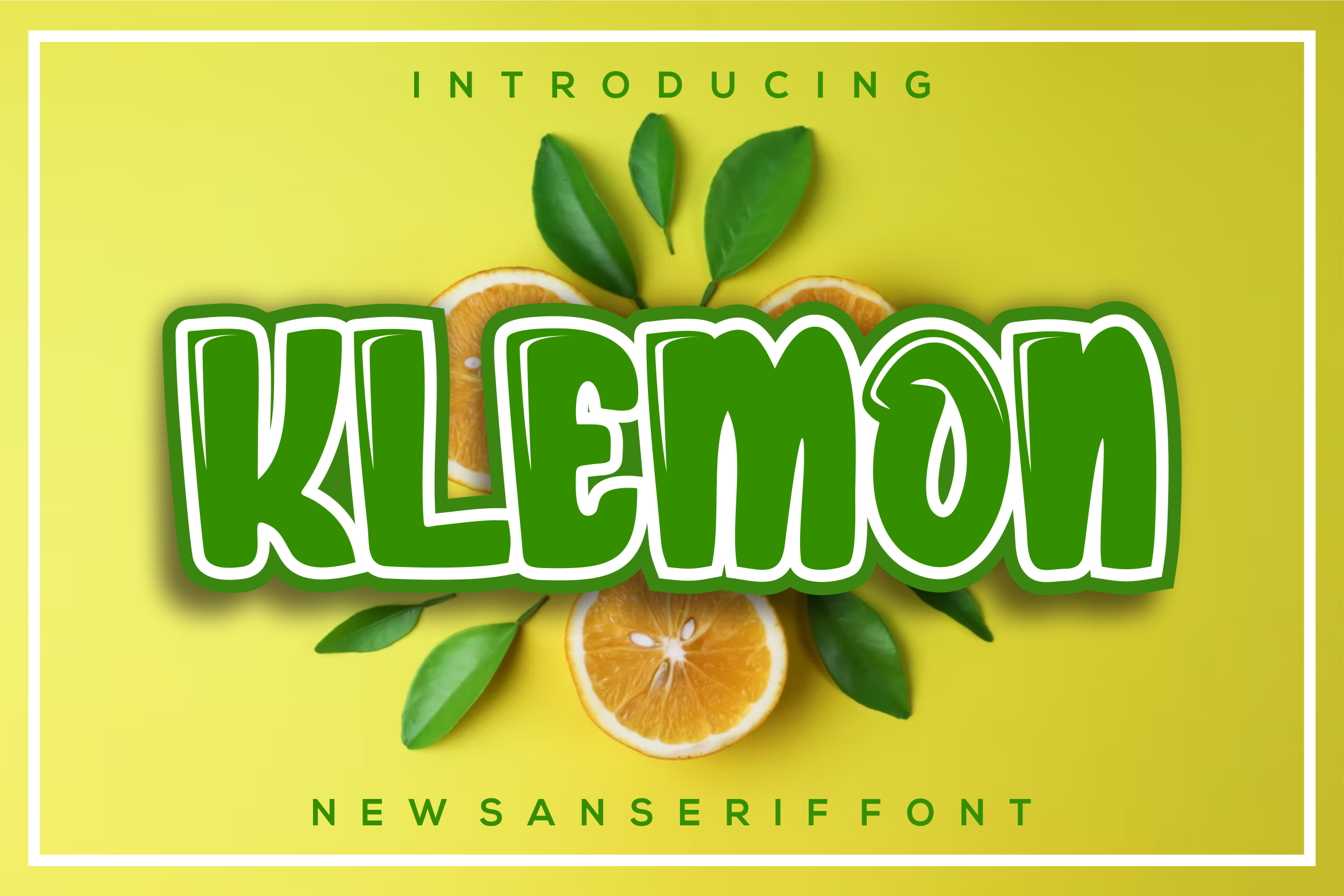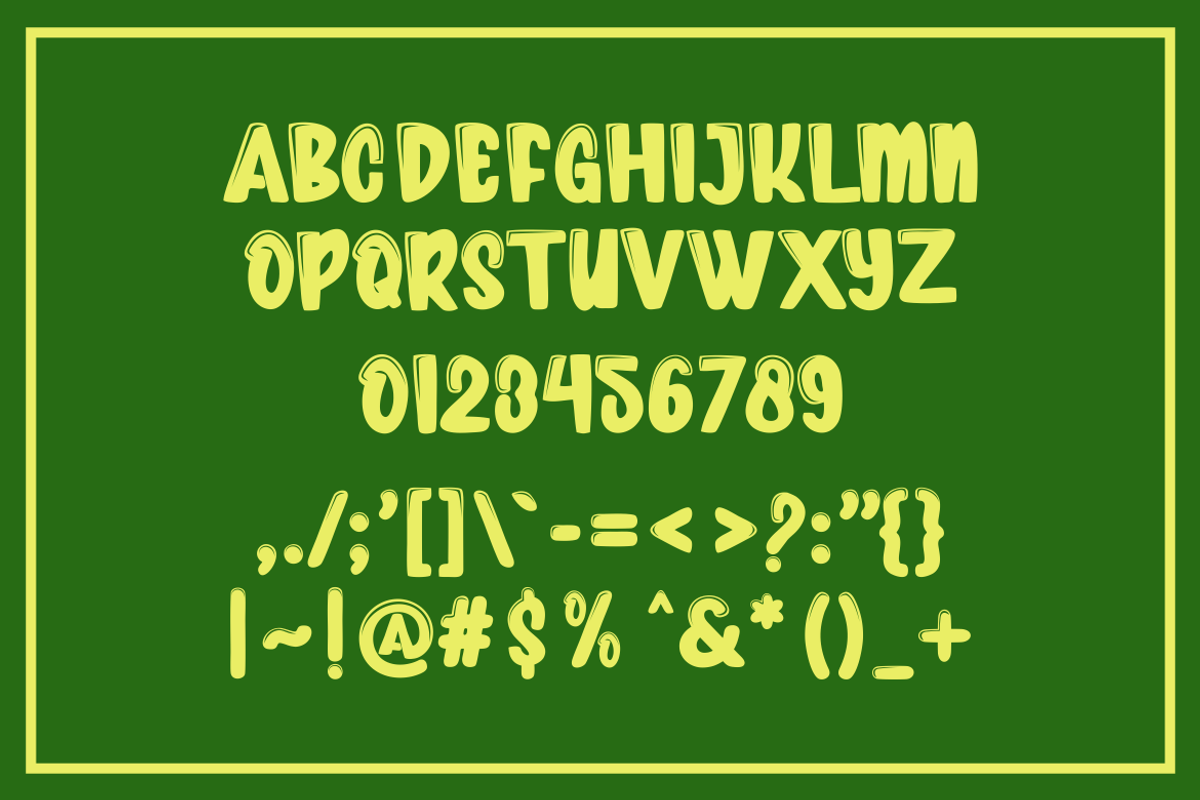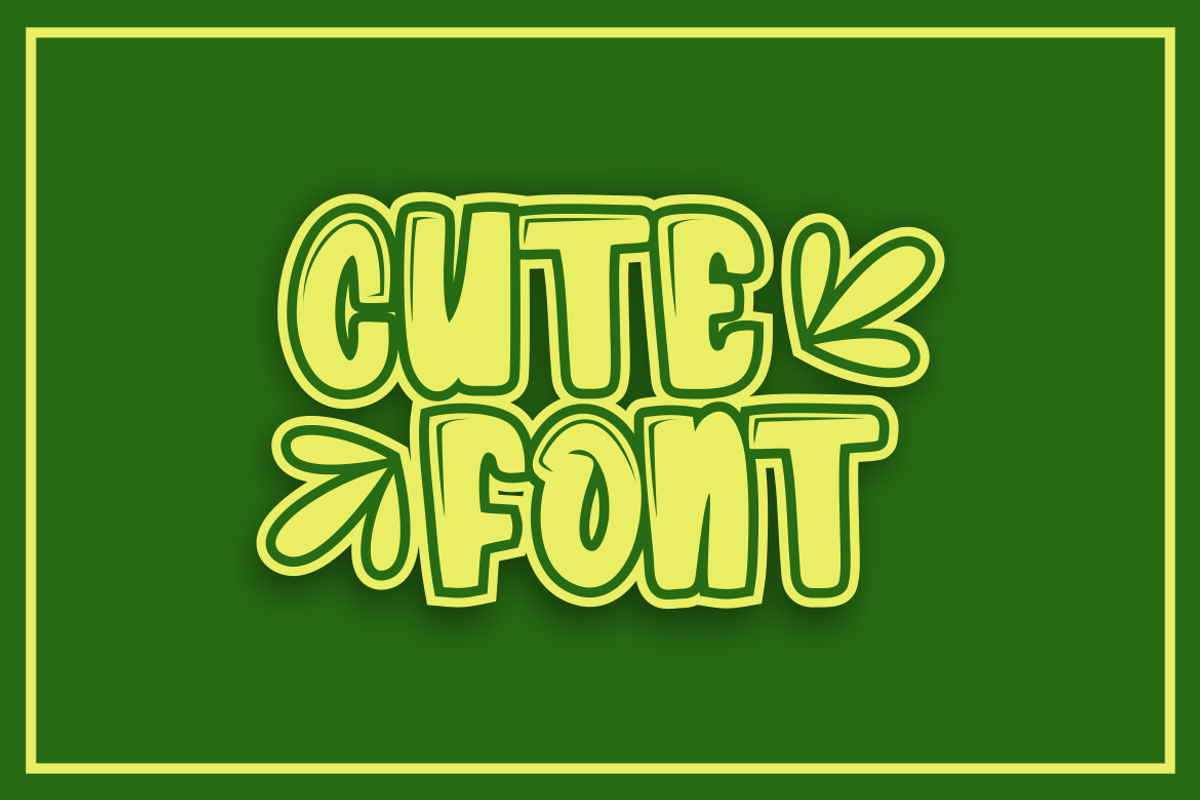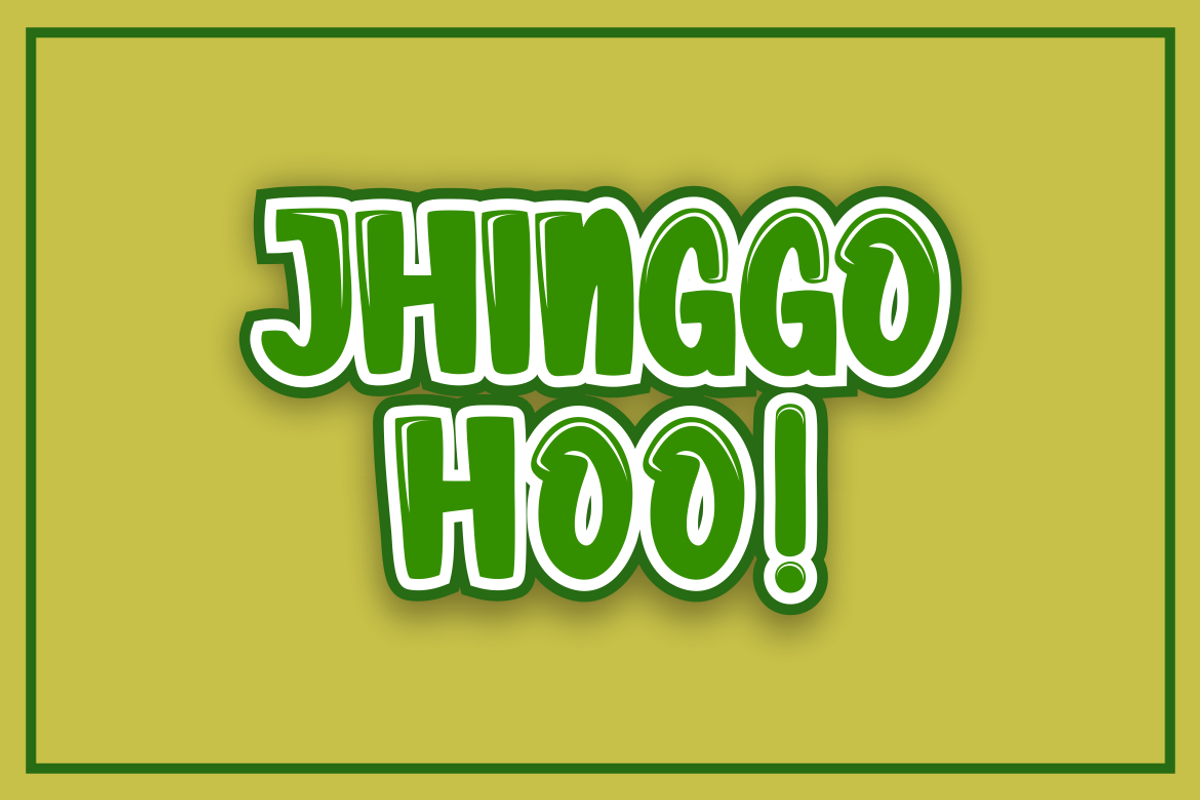
Klemon Font
Introducing our new product Klemon Font - Modern Font
Klemon Font - Modern Font is a bold and authentic display font. The font is suitable for any branding project like logo, esport, and many more. outstanding in a wide range of contexts.